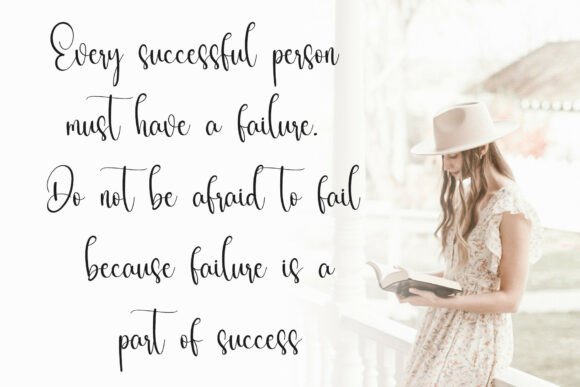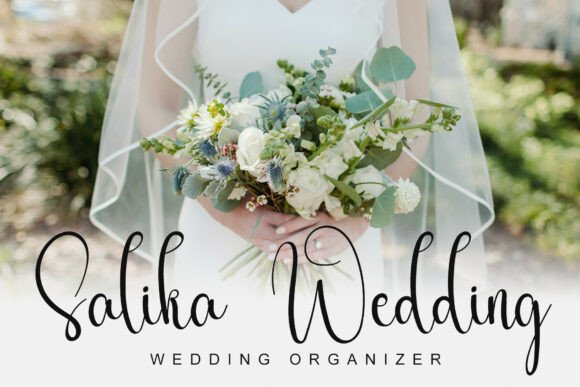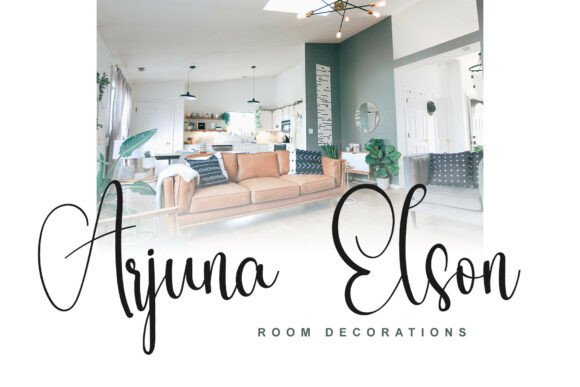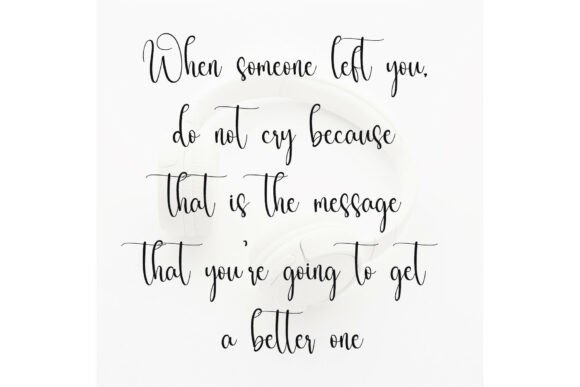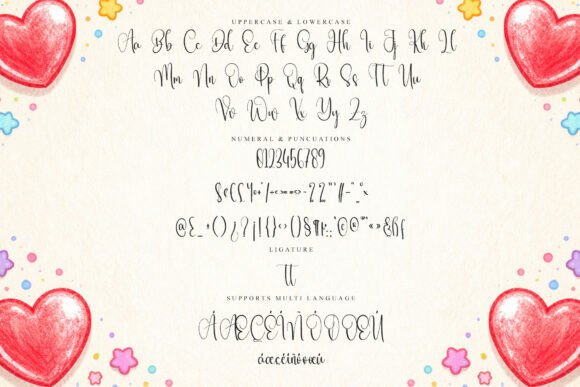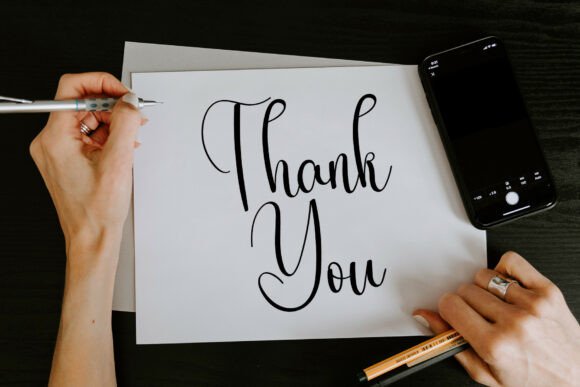
Candy Heart Font: Add a Touch of Happiness to Your Designs
Are you looking for a font that can add a playful and modern touch to your designs? Look no further than the Candy Heart Font! This stylish and modern handwritten font is perfect for a wide range of applications, from greeting cards to headlines, branding, and packaging.
What Makes Candy Heart Font Special?
Candy Heart Font is a unique and creative font that is designed to bring a smile to your audience’s face. Its modern and handwritten style makes it perfect for designers and crafters who want to add a personal touch to their work. The font is versatile and can be used for various projects, including:
- Greeting cards: Create beautiful and heartfelt greeting cards for special occasions like Valentine’s Day, birthdays, and anniversaries.
- Headlines: Add a pop of color and fun to your headlines with Candy Heart Font.
- Branding: Use the font to create a unique and memorable brand identity for your business.
- Packaging: Add a touch of whimsy to your product packaging with this delightful font.
Features of Candy Heart Font
Candy Heart Font comes with several features that make it a must-have for designers and crafters. Some of its key features include:
- PUA Encoded: The font is PUA encoded, which means you can access all the amazing glyphs and ligatures with ease.
- Handwritten Style: The font has a modern and handwritten style that is perfect for adding a personal touch to your designs.
- Versatile: The font is versatile and can be used for a wide range of applications.
Benefits of Using Candy Heart Font
Using Candy Heart Font can bring several benefits to your designs. Some of the benefits include:
- Unique and Creative: The font is unique and creative, which means you can create designs that stand out from the crowd.
- Time-Saving: The font is easy to use and comes with a range of glyphs and ligatures, which means you can save time and effort in creating your designs.
- Professional-Looking Designs: The font is designed to create professional-looking designs that are perfect for both personal and commercial use.
Here are some tips and tricks to help you get the most out of Candy Heart Font:
- Experiment with Different Colors: Experiment with different colors to add a pop of color to your designs.
- Mix and Match: Mix and match the font with other fonts to create a unique and creative design.
- Use Ligatures: Use the ligatures and glyphs to add a touch of whimsy to your designs.
- Keep it Simple: Keep your design simple and clean to let the font shine.